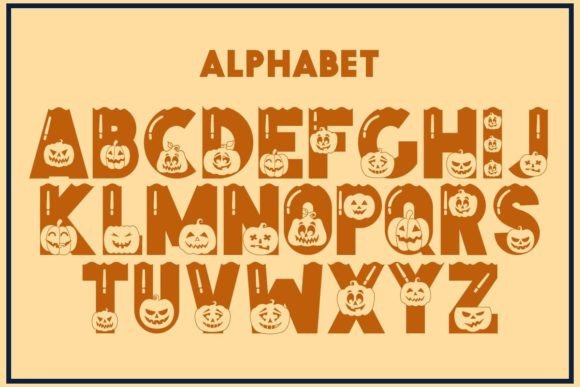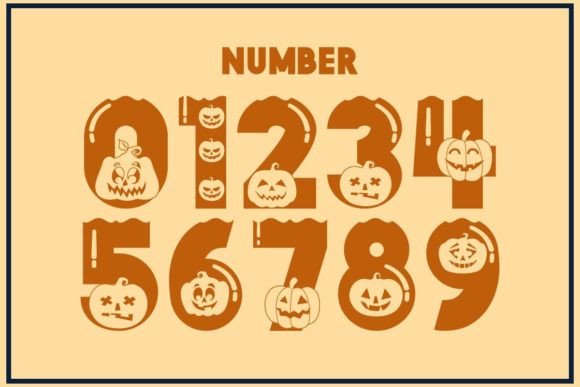
Introduction to Halloween Pumpkins Font
Halloween Pumpkins is a fun and incredibly cute decorative font.
It can be used for various design ideas, particularly those related to the Fall season .
Key Features of Halloween Pumpkins Font
Why Choose Halloween Pumpkins Font?